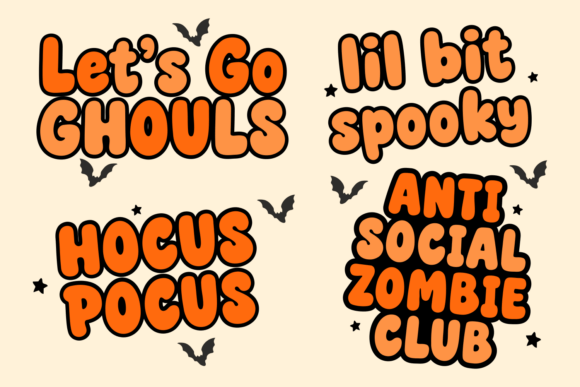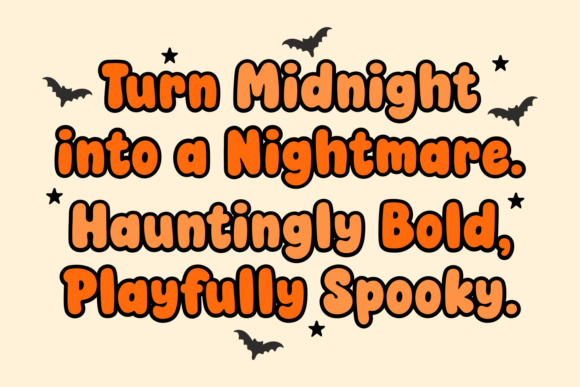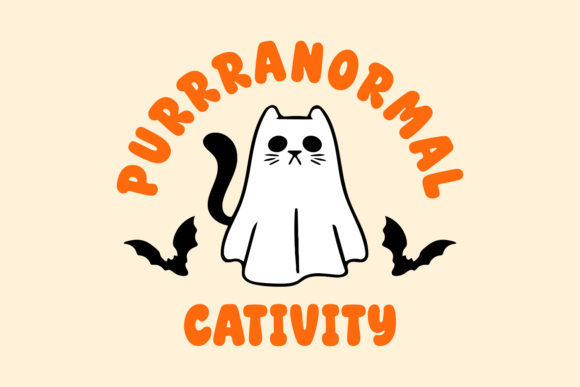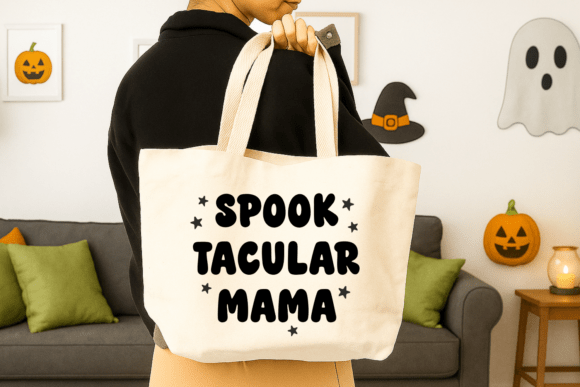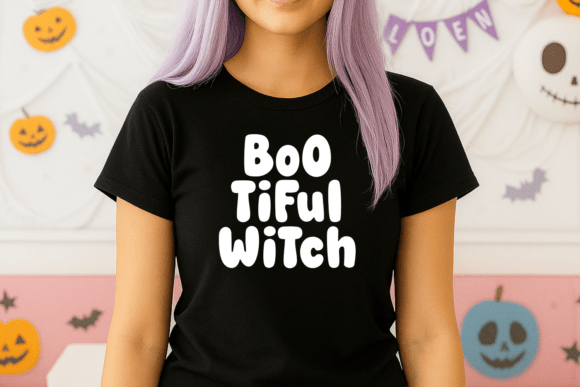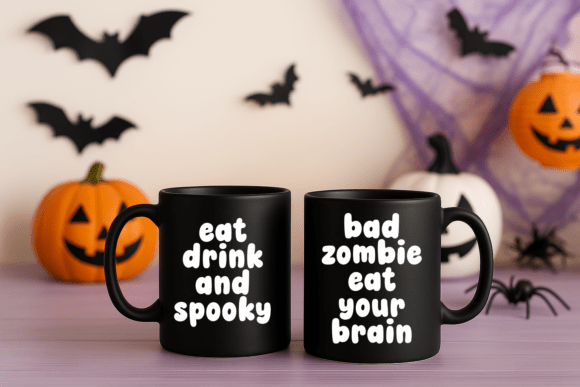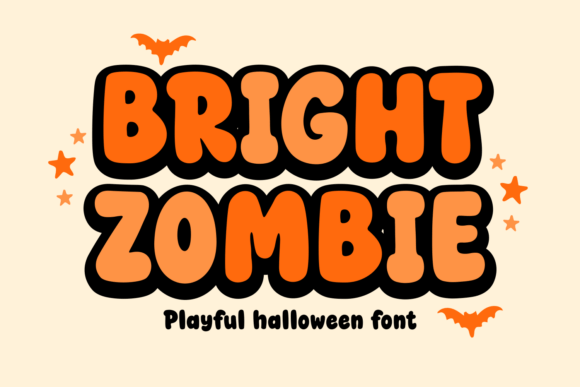
Unleash the Fun with Bright Zombie Font by Dreamink: A Playful Halloween Display Font
Are you ready to add a dash of spooky fun to your designs without being too scary? Look no further than the Bright Zombie font by Dreamink! This playful Halloween display font is the perfect blend of eerie excitement and cheerful energy, making it ideal for a wide range of projects that require a lively twist on the Halloween spirit.
What Makes Bright Zombie Font So Special?
Bright Zombie is a bold, rounded, and bouncy font that brings a charming pop to any project. Its cartoonish style makes it especially great for kid-friendly themes and cheerful seasonal branding. The font’s playful design is perfect for party invitations, trick-or-treat bags, children’s Halloween books, seasonal crafts, t-shirt designs, stickers, and social media posts.
Key Features of Bright Zombie Font
- Playful and Spooky Design: Bright Zombie font combines spooky fun with cheerful energy, making it perfect for Halloween-themed projects.
- Bold and Rounded Letterforms: The font features bold, rounded letterforms that add a charming touch to any design.
- Bouncy Design: The bouncy design of the font gives it a lively and energetic feel, perfect for projects that require a playful twist.
- Kid-Friendly: The cartoonish style of the font makes it especially great for kid-friendly themes and cheerful seasonal branding.
Use Cases for Bright Zombie Font
Bright Zombie font is incredibly versatile and can be used for a wide range of projects, including:
- Party Invitations: Create spooky-fun party invitations that will get your guests excited for the Halloween festivities.
- Trick-or-Treat Bags: Add a playful touch to trick-or-treat bags with Bright Zombie font.
- Children’s Halloween Books: Bring the Halloween spirit to life in children’s books with this fun and playful font.
- Seasonal Crafts: Add a charming touch to seasonal crafts, such as Halloween decorations and DIY projects.
- T-Shirt Designs: Create eye-catching t-shirt designs that will make a statement at any Halloween party.
- Stickers and Social Media Posts: Use Bright Zombie font to create fun and engaging stickers and social media posts that will get your followers in the mood for Halloween.
Why Choose Bright Zombie Font?
Bright Zombie font is the perfect choice for designers and crafters who want to add a dash of spooky fun to their projects without being too scary. Its playful design, bold letterforms, and bouncy feel make it ideal for a wide range of projects, from party invitations to t-shirt designs.
With Bright Zombie font, you can:
- Add a Playful Twist: Bring a playful twist to your designs with this fun and energetic font.
- Create Kid-Friendly Themes: Use Bright Zombie font to create kid-friendly themes and cheerful seasonal branding.
- Stand Out from the Crowd: Make your designs stand out from the crowd with this unique and eye-catching font.
In conclusion, Bright Zombie font by Dreamink is a playful Halloween display font that is perfect for designers and crafters who want to add a dash of spooky fun to their projects. Its bold, rounded letterforms, bouncy design, and kid-friendly style make it ideal for a wide range of projects, from party invitations to t-shirt designs.